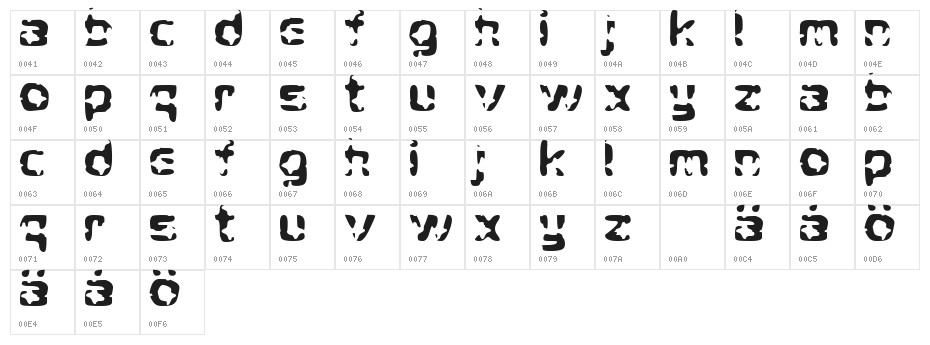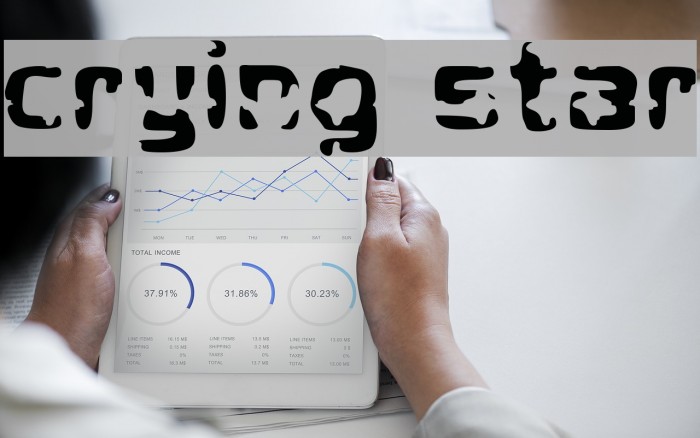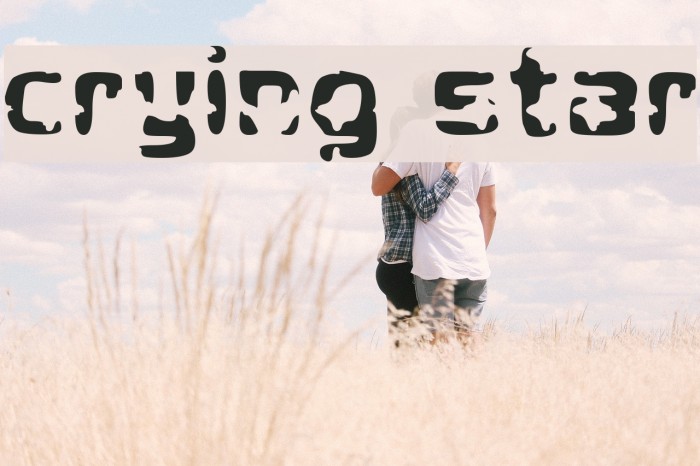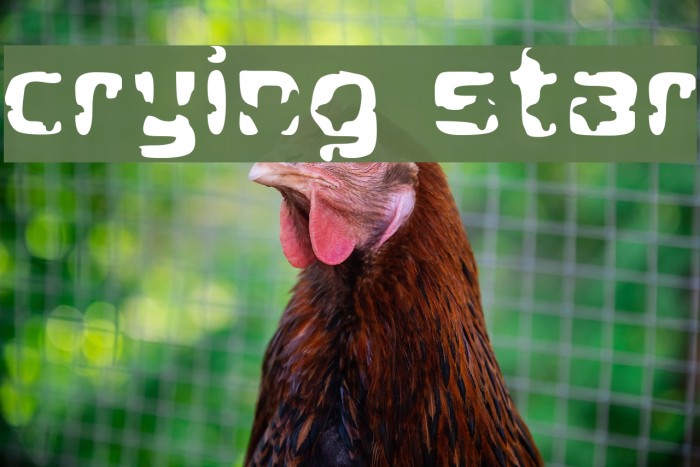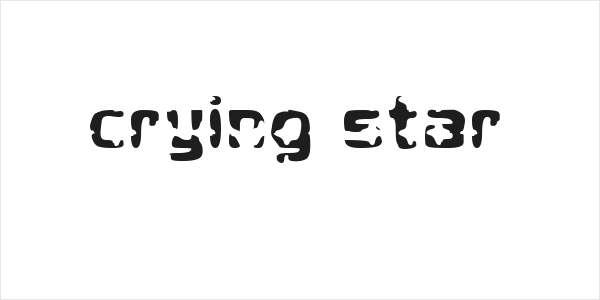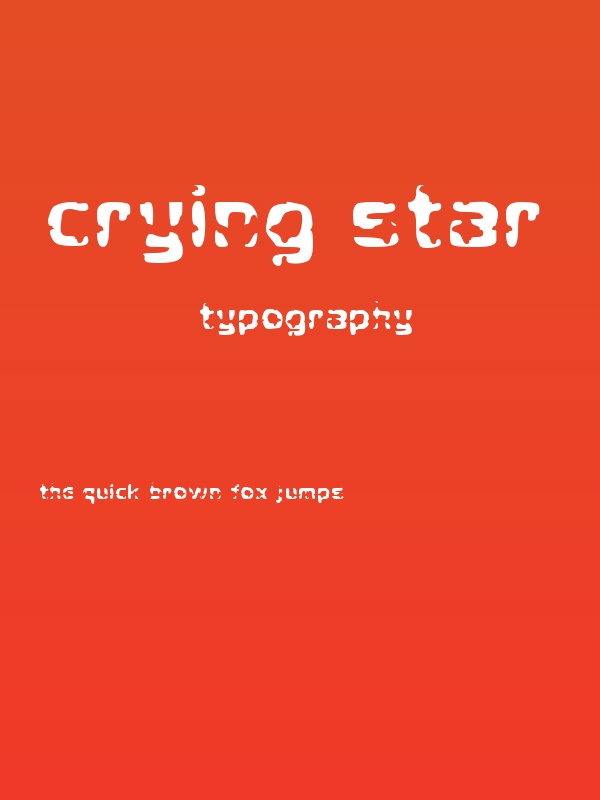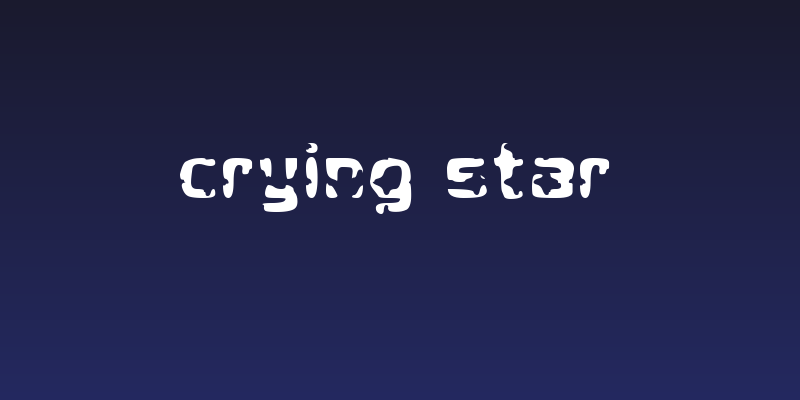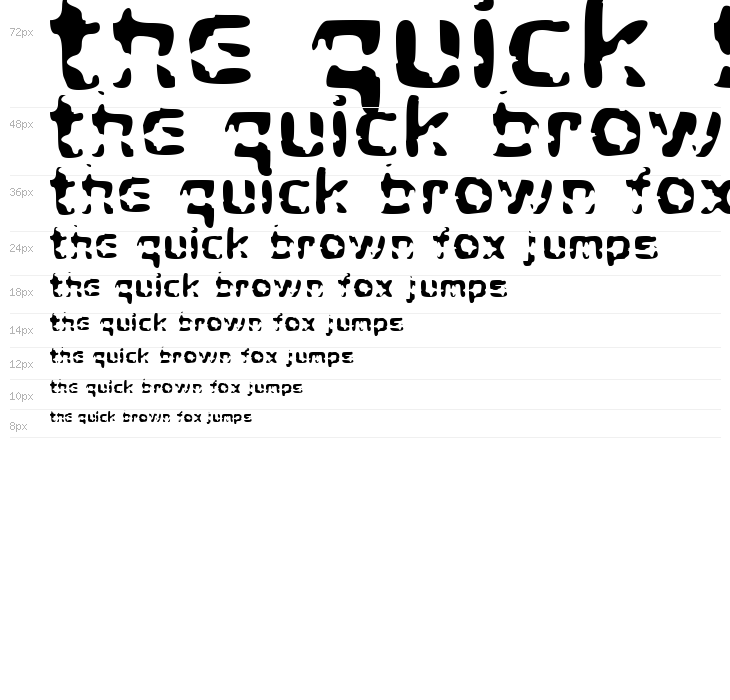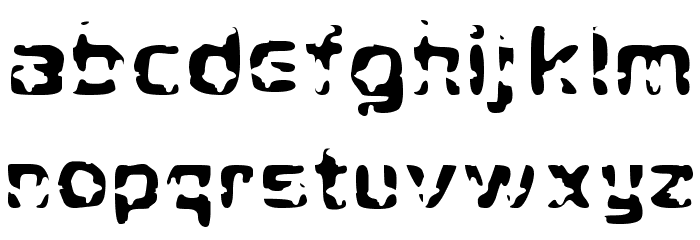
Crying Star Font
Crying Star Description
This font features a unique and artistic design with irregular, organic shapes that give it a playful and dynamic appearance. The characters have a fluid, almost liquid-like quality, with varying thicknesses and unexpected curves. This creates a sense of movement and energy, making it stand out as a decorative option. The font lacks traditional serifs and has a modern, abstract feel. It is highly stylized, with each letter exhibiting distinct characteristics, contributing to its overall whimsical and creative style.
Use CaseLogos, Posters, Artistic Branding
Proposed ProjectsIdeal for creative projects such as posters, album covers, and artistic branding where a unique and eye-catching typeface is desired.